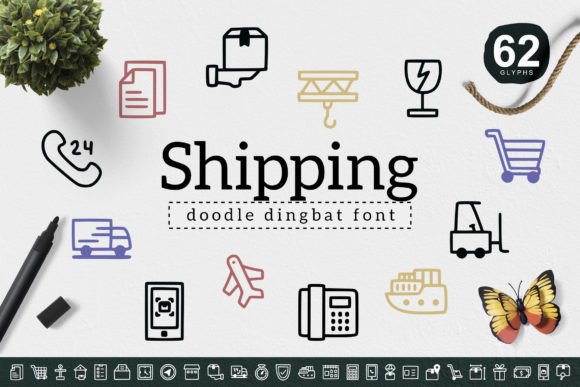
Prepare to set sail on an extraordinary typographic adventure with Shipping, the adorable dingbats font that will transform your creations into captivating masterpieces!
Picture this: an enchanting world where whimsical characters dance across your designs, adding a touch of magic and wonder to every project you embark on. Shipping is not just a font; it's a gateway to a realm of infinite possibilities.
Imagine crafting delightful stickers that evoke childhood memories and bring smiles to faces. Create eye-catching posters that engage young minds and inspire creativity. Design vibrant t-shirts that make a playful statement and capture the essence of youthful exuberance.
With Shipping, the possibilities are endless. From personalized cards that express heartfelt emotions to eye-catching apparel graphics that showcase your unique style, this font empowers you to weave a tapestry of visual delight.
Let Shipping be your trusty companion as you embark on a journey of artistic exploration. Its whimsical nature will ignite your imagination and inspire you to create designs that resonate with the hearts of your audience.
So cast off the ordinary and set sail with Shipping, the font that will transport your creations to uncharted realms of enchantment and wonder!